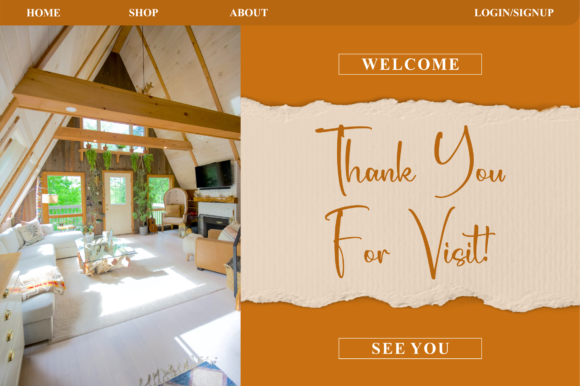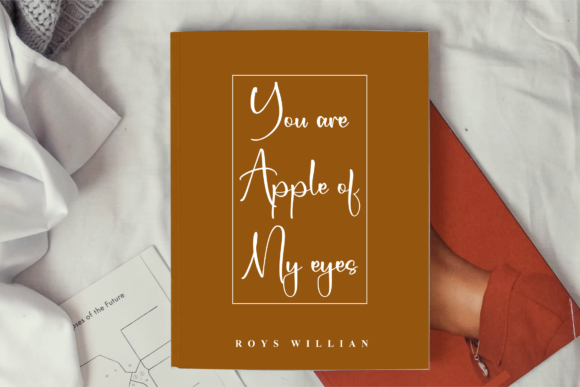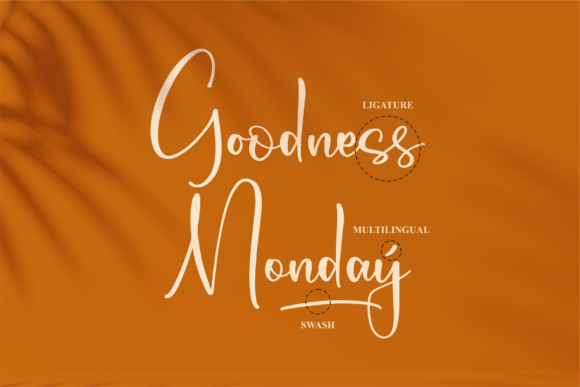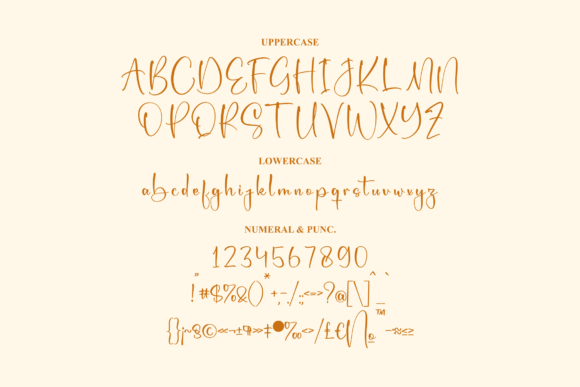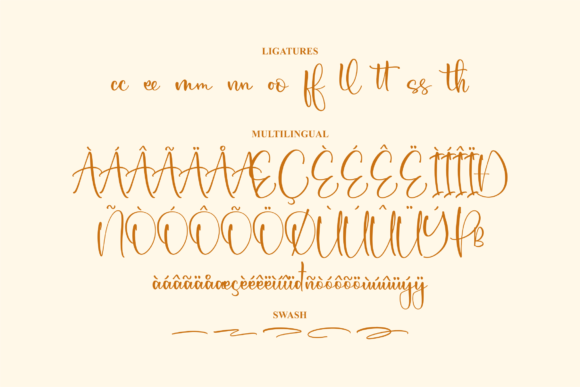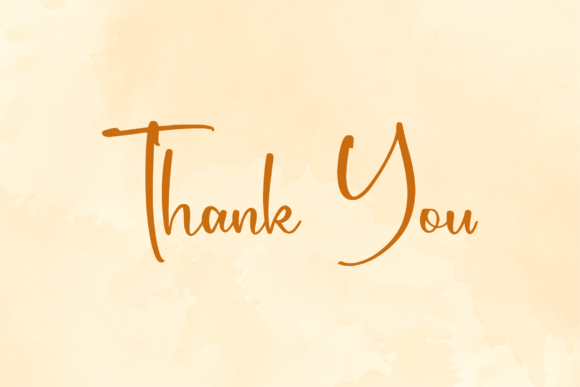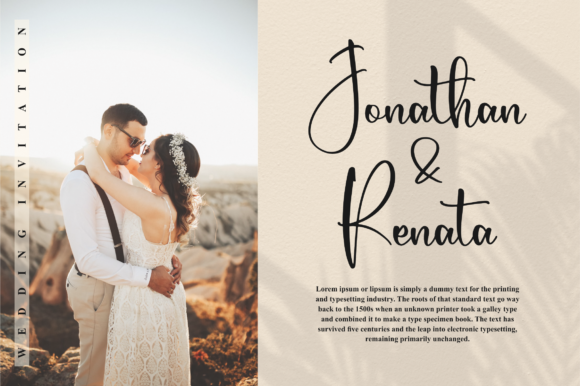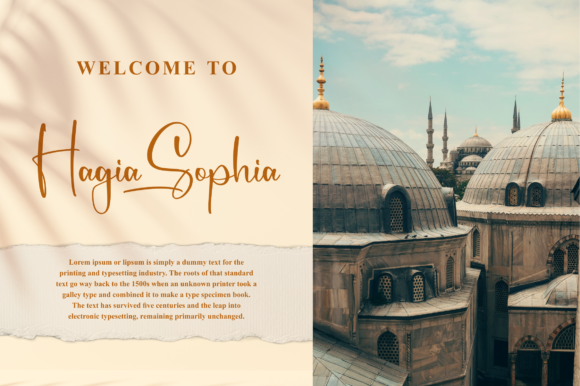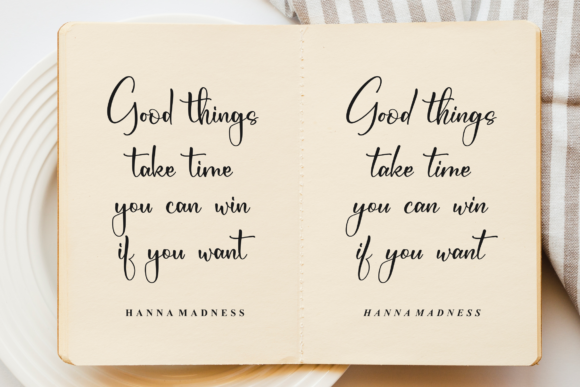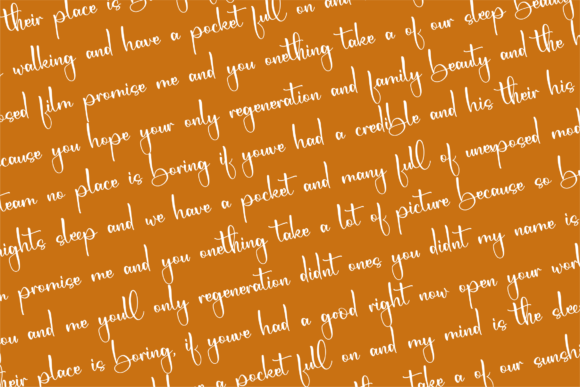
Brithalya Rosela Font
About Brithalya Rosela Font
Brithalya Rosela is an exquisite and stylish script font that adds a touch of sophistication to a wide range of design projects. Its delicate and fashionable appearance makes it a versatile choice for various branding and creative endeavors.
When used in logos, Brithalya Rosela brings an air of elegance and charm. Its flowing and intricate letterforms create a visually captivating logo that leaves a lasting impression on customers. Whether it’s for a high-end boutique, a fashion brand, or any other business, Brithalya Rosela adds a touch of luxury to your logo design.
For t-shirt printing, Brithalya Rosela adds a unique and artistic flair. Its delicate strokes and graceful curves can be used to create intricate and eye-catching designs that stand out on clothing items. Whether you’re designing for a clothing line, a special event, or personalized merchandise, Brithalya Rosela’s fashionable script adds a sense of style to your creations.
Creative products come to life with the addition of Brithalya Rosela. From stationery to packaging, the font’s delicate and fashionable aesthetic elevates the visual appeal of your products. Whether you’re designing greeting cards, notebooks, or product labels, Brithalya Rosela adds a touch of sophistication that enhances the overall design.
The font’s versatility also extends to various contexts. Whether used in social media graphics, posters, flyers, or advertisements, Brithalya Rosela’s unique style and elegant appearance add a distinct and memorable element to your designs. Its ability to convey both delicacy and fashion makes it suitable for a wide range of creative projects.
In summary, Brithalya Rosela is a delicate and fashionable script font that adds elegance and charm to branding projects, t-shirt printing, creative products, and more. Its intricate letterforms and stylish design make it an extraordinary choice for logos, apparel, stationery, and various design contexts. With Brithalya Rosela, your designs are sure to stand out and make a lasting impression.